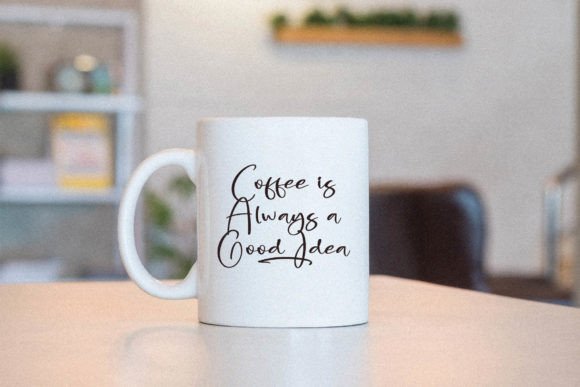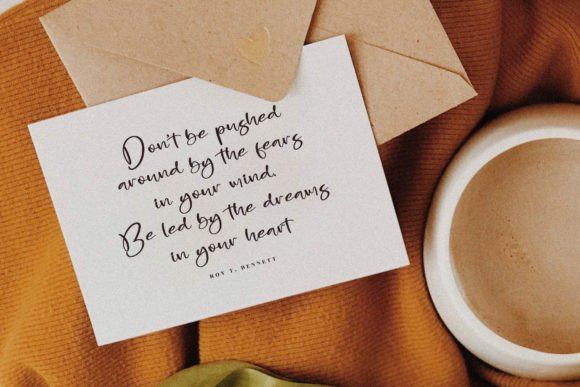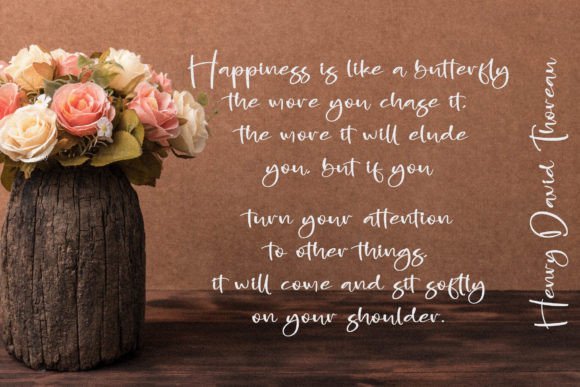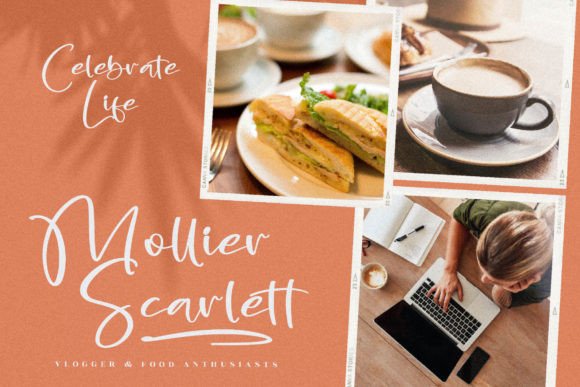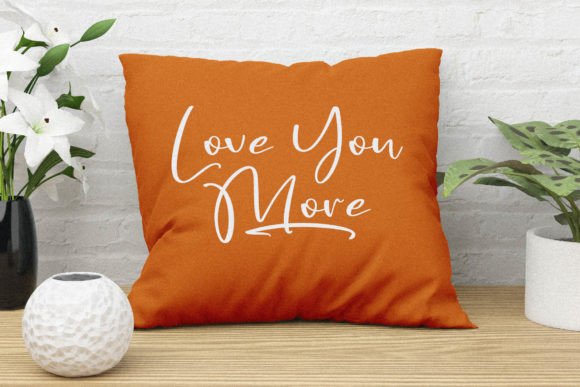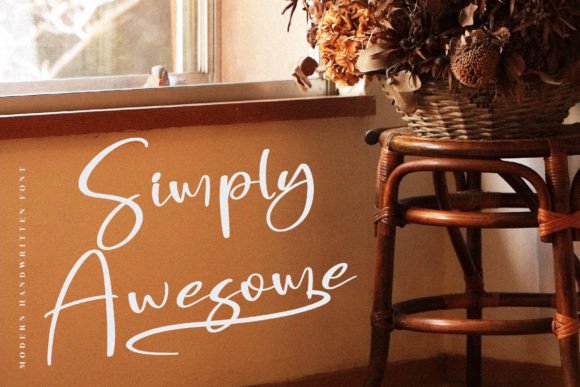
Introducing Goall Shmidtown Font: A Modern Handwritten Script for Creative Projects
In the world of typography, fonts play a crucial role in conveying the tone and personality of a brand or design. For designers and crafters looking for a unique and modern handwritten font, Goall Shmidtown is an excellent choice. This lovely script typeface is perfect for a wide range of creative projects, from logos and branding to homeware designs, product packaging, and more.
What Makes Goall Shmidtown Special?
Goall Shmidtown is a modern handwritten font that exudes elegance and sophistication. Its smooth, flowing lines and delicate strokes make it an ideal choice for designs that require a touch of personality and whimsy. The font’s unique characteristics include:
- Handwritten feel: Goall Shmidtown has a genuine handwritten feel that adds a personal touch to any design.
- Script typeface: The font’s script style makes it perfect for designs that require a touch of elegance and sophistication.
- Modern look: Goall Shmidtown’s modern design ensures that your projects look fresh and up-to-date.
Use Cases for Goall Shmidtown Font
Goall Shmidtown’s versatility makes it suitable for a wide range of creative projects, including:
- Logos and branding projects: Create a lasting impression with a unique and memorable logo that reflects your brand’s personality.
- Homeware designs: Add a touch of elegance to your homeware designs, such as stationery, wall art, and decorative items.
- Product packaging: Make your products stand out with eye-catching packaging that features Goall Shmidtown.
- Mugs and quotes: Create inspiring and stylish mugs and quotes that showcase your creativity.
- Posters and shopping bags: Use Goall Shmidtown to create visually appealing posters and shopping bags that grab attention.
- T-shirts and book covers: Design stylish and memorable t-shirts and book covers that feature Goall Shmidtown.
- Name cards and business cards: Create professional and stylish name cards and business cards that make a lasting impression.
Why Choose Goall Shmidtown Font?
With so many fonts available, why choose Goall Shmidtown? Here are a few reasons:
- Unique and distinctive: Goall Shmidtown is a one-of-a-kind font that will set your designs apart from the rest.
- Elegant and sophisticated: The font’s elegant and sophisticated design makes it perfect for designs that require a touch of refinement.
- Easy to read: Goall Shmidtown is clear and easy to read, making it perfect for designs that require a high level of legibility.
- Versatile: The font’s versatility makes it suitable for a wide range of creative projects.
Tips for Using Goall Shmidtown Font
To get the most out of Goall Shmidtown, here are a few tips:
- Use it sparingly: Use Goall Shmidtown sparingly to create emphasis and add visual interest to your designs.
- Pair it with other fonts: Pair Goall Shmidtown with other fonts to create a unique and visually appealing typography.
- Experiment with colors and textures: Experiment with different colors and textures to add depth and interest to your designs.
Goall Shmidtown is a modern handwritten font that is perfect for designers and crafters looking for a unique and elegant script typeface. Its versatility, elegance, and sophistication make it suitable for a wide range of creative projects, from logos and branding to homeware designs and product packaging. With its smooth, flowing lines and delicate strokes, Goall Shmidtown is sure to add a touch of personality and whimsy to your designs.